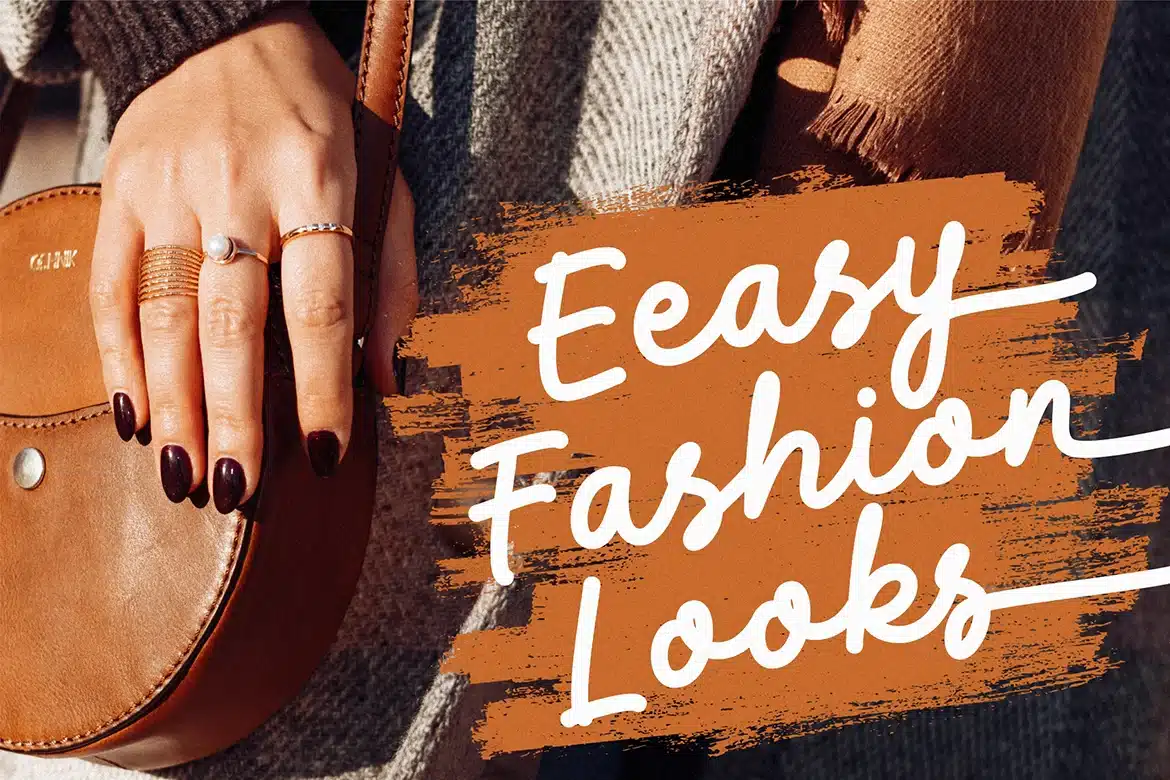
Hertica Font
Say hello to Hertica ! A new Modern monoline font.
Hertica is a Modern monoline font, perfect for crafting, branding, invitation, stationery, wedding designs, social media
posts, Logo, advertisements, product packaging, product designs, label, Posters, photography, special events, or anything.